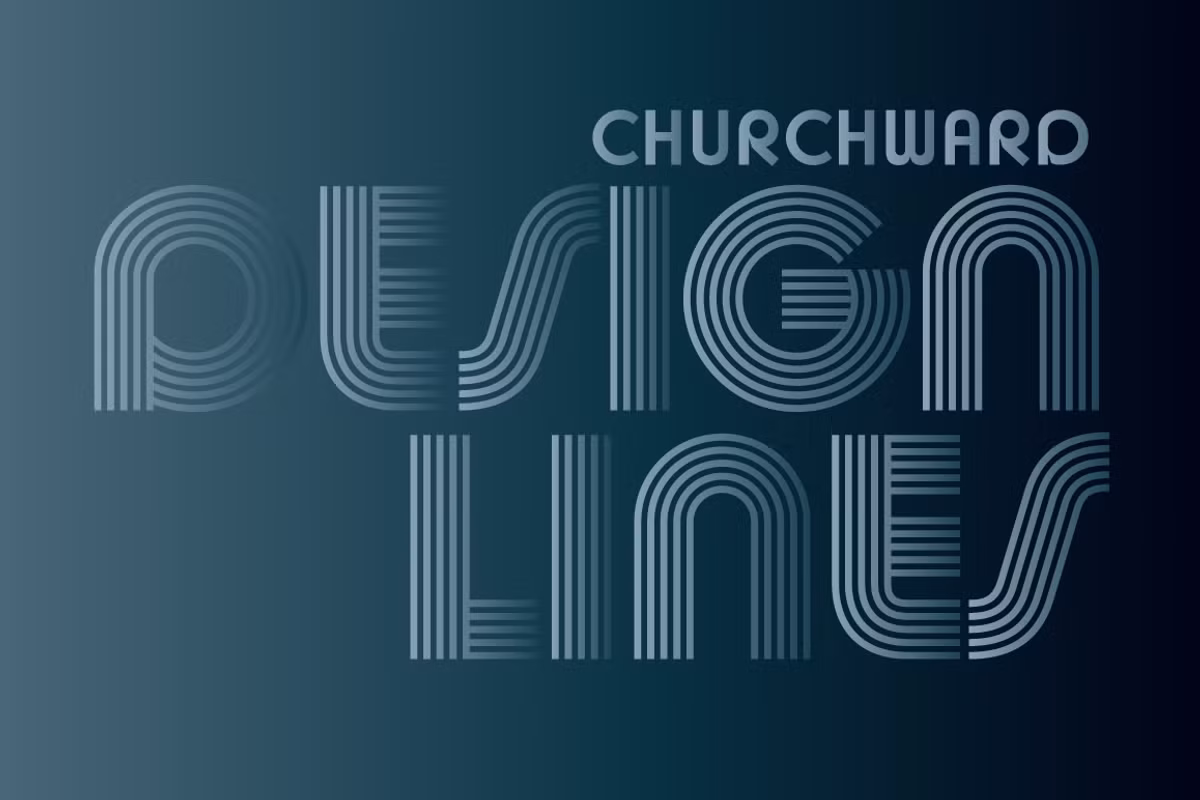
This architectural font is perfect for design studio branding, technical documentation, blueprint presentations, engineering proposals, architectural portfolios, construction company materials, interior design projects, and professional drafting applications. Its precise character makes it ideal for projects requiring technical accuracy combined with creative design sensibility.
Churchward Design Lines is exciting because it captures the essence of architectural precision and design methodology with letterforms that mirror the clean lines and geometric principles found in professional drafting and technical drawing. The font features consistent stroke weights, perfect angles, and mathematical precision that reflects the disciplined approach of architectural design. Its technical aesthetic communicates professionalism, accuracy, and innovative design thinking.
The Churchward Design Lines family typically includes multiple weights and condensed variations, along with technical symbols, architectural icons, and geometric elements. Many versions feature specialized glyphs for measurements, angles, and construction notation that enhance its utility for professional design applications.
Whether you're developing architectural presentations, engineering documentation, or design-focused brand identities, Churchward Design Lines Free Download provides technical precision with creative sophistication. This typeface transforms ordinary text into professional design statements that resonate with architects, engineers, and design professionals who appreciate methodical craftsmanship. Its distinctive character adds immediate credibility to technical communications while maintaining excellent readability, making it an essential resource for professionals who require fonts that bridge the gap between artistic creativity and technical precision in their design work.